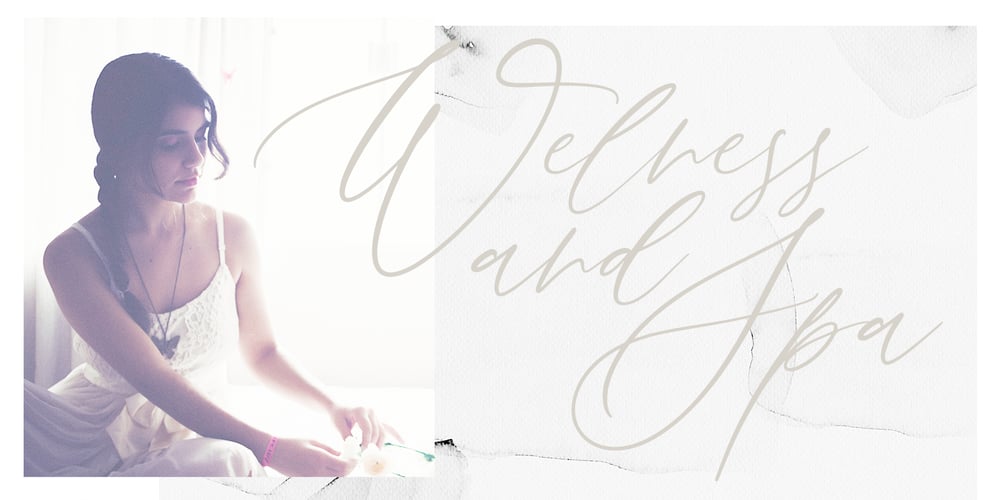
Melvin and Emily
Melvin and Emily font
Melvin and Emily Font Family was designed by Ivan Rosenberg and published by Ivan Rosenberg. Melvin and Emily contains 2 styles and family package options. Melvin and Emily is a modern calligraphy font with perfect serif pair. Both fonts includes multilingual support for Western and Central Europe. These are ideal for blog website, instagram, branding, invitations, business cards, weddings and many more. Script version also includes alternate characters for both UPPERCASE AND LOWERCASE letters, beginning ending swashes for all lowercase letters and ligatures for different styles. For access to Stylistic Alternates is required software with glyphs panel like Photoshop and llustrator. No special software is required to use Ligatures.